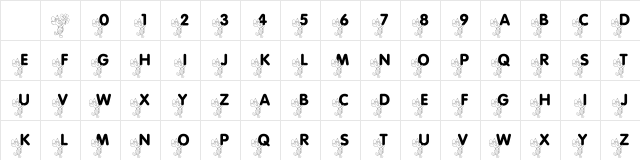
LMS Pigglet's Luck Of The Irish Regular Free Font
LMS Pigglet's Luck Of The Irish Regular
Design Context for LMS Pigglet's Luck Of The Irish
LMS Pigglet's Luck Of The Irish is a composed and adaptable typeface that performs quietly and consistently across a wide range of design contexts.
Pro Tip: Use LMS Pigglet's Luck Of The Irish in both headline and body roles to test its range before committing to a single application.